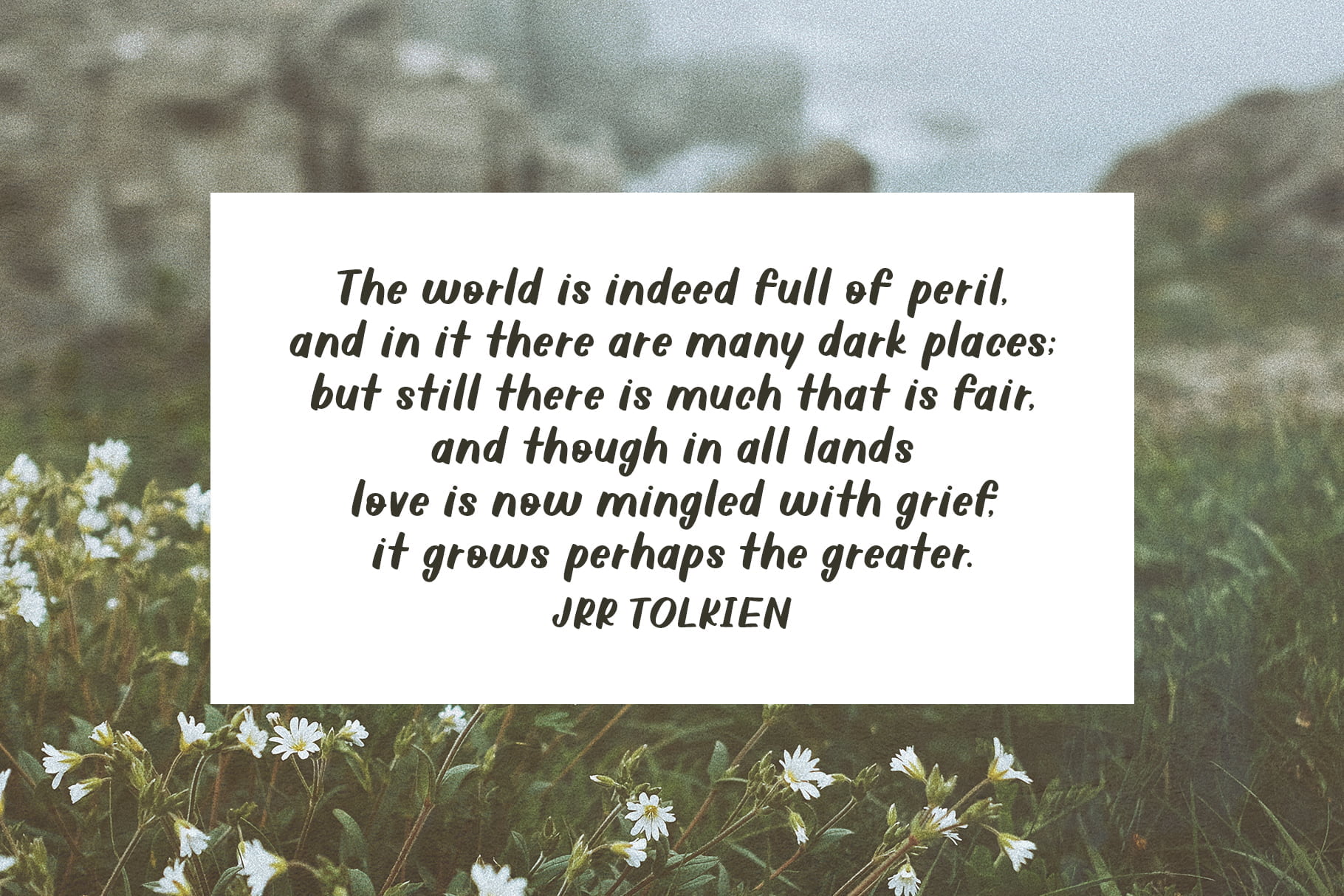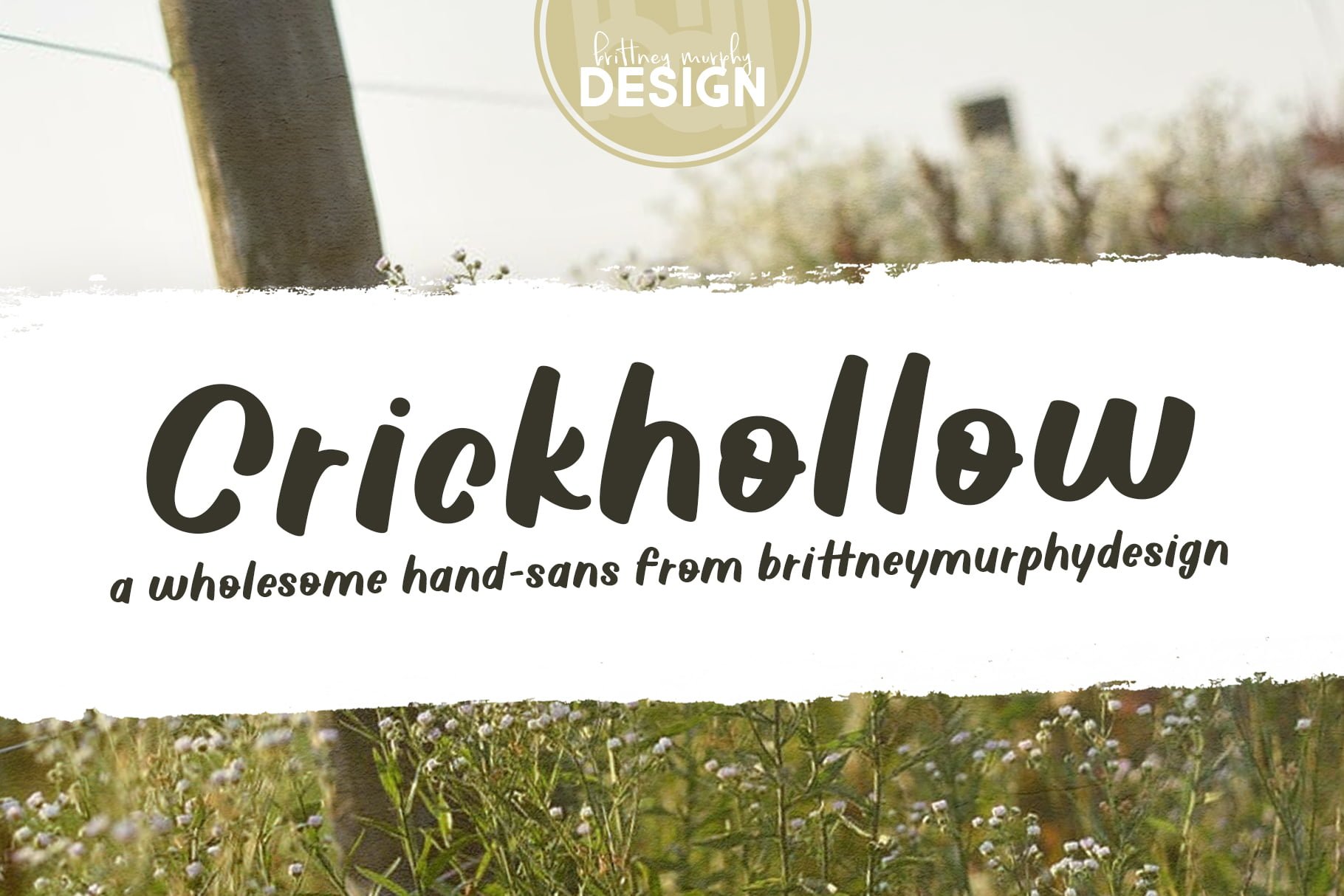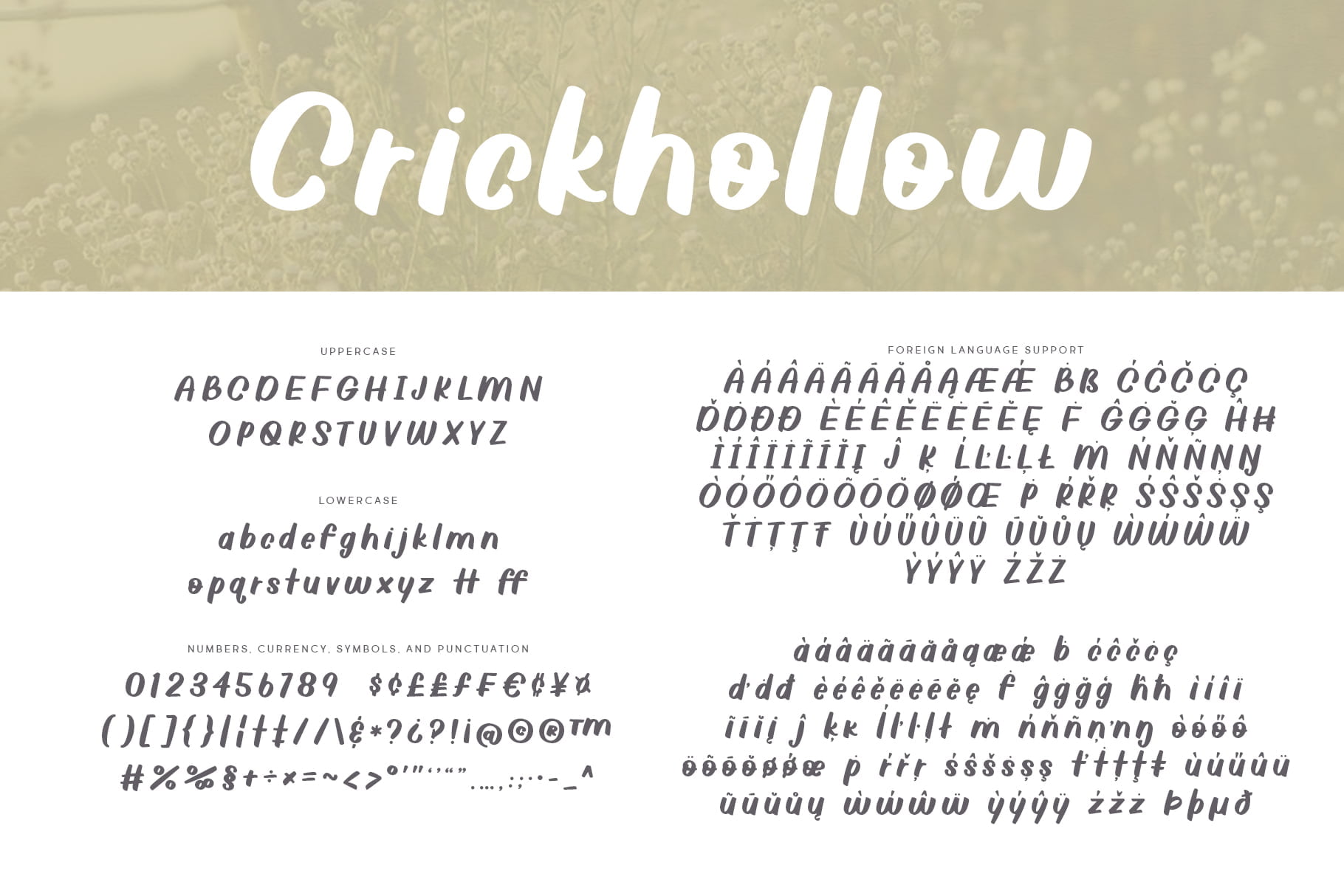
Crickhollow
The Crickhollow Font is a clean handwritten sans font made in 2021 by Brittney Murphy Design. Crickhollow was created in a classic handdrawn advertising style and would work well for signage or packaging.